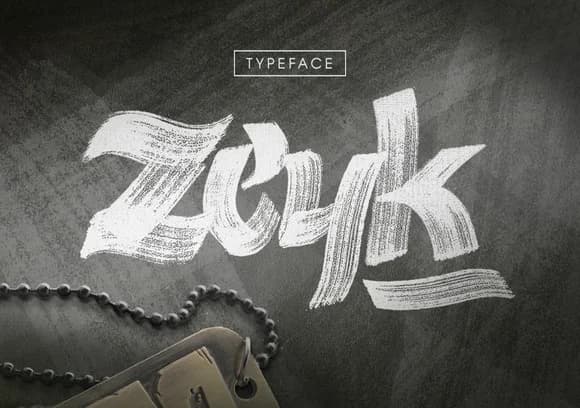
Zeyk Font, a flowing script typeface by Juan Pablo Bello Fernández, captures the organic beauty of genuine hand-lettering while maintaining impressive legibility across diverse projects. The letterforms move with natural rhythm, offering that authentic written quality that professionally designed typefaces often struggle to achieve, blending impeccable craftsmanship with the warmth of human touch that speaks to modern audiences.
This typeface excels when personal authenticity and emotional connection matter most. Deploy it for luxury wedding invitation suites where elegance and romantic sentiment are equally crucial, handcrafted event programs that deserve refined attention to detail, artisan product labeling for small-batch brands seeking genuine character and distinction, and custom greeting card designs where a personal touch transforms the entire message. The flowing strokes and gentle curves prove equally effective in editorial spreads and social media graphics, wherever a hint of human artistry strengthens visual communication and builds brand connection.
Zeyk Font combines traditional handwriting sensibilities with reliable technical performance across both digital displays and premium print applications. Its balanced structure maintains complete readability whether gracing delicate stationery or commanding brand identity materials. Discover this versatile typeface on Creative Fabrica and bring authentic handwritten elegance to your upcoming creative projects.
Zeyk Font is a script font that shines as a display or heading face. Pair it with a clean sans-serif or serif font for body text — the contrast creates a clear hierarchy while the two styles stay balanced and easy to read.